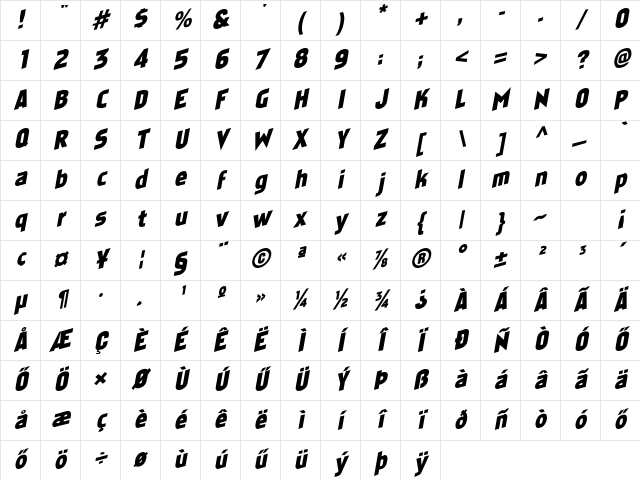
H_Faktosas Slanted Normal
Design Context for H_Faktosas Slanted
H_Faktosas Slanted is a composed and adaptable typeface that performs quietly and consistently across a wide range of design contexts. The slanted form adds forward momentum and visual energy.
Pro Tip: Use H_Faktosas Slanted for emphasis, pull quotes, and subheadings where its slanted energy can add rhythm to the layout.